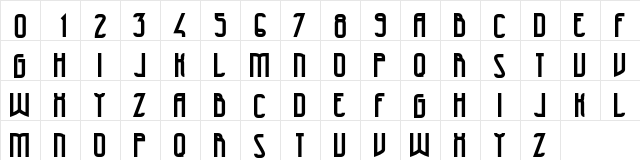
47 Bold
| Foundry | Moinzek |
| Designer | Hendrick Rolandez |
Design Context for 47 Typeface
47 is a composed and adaptable typeface that performs quietly and consistently across a wide range of design contexts. The heavy weight commands attention and anchors typographic hierarchies.